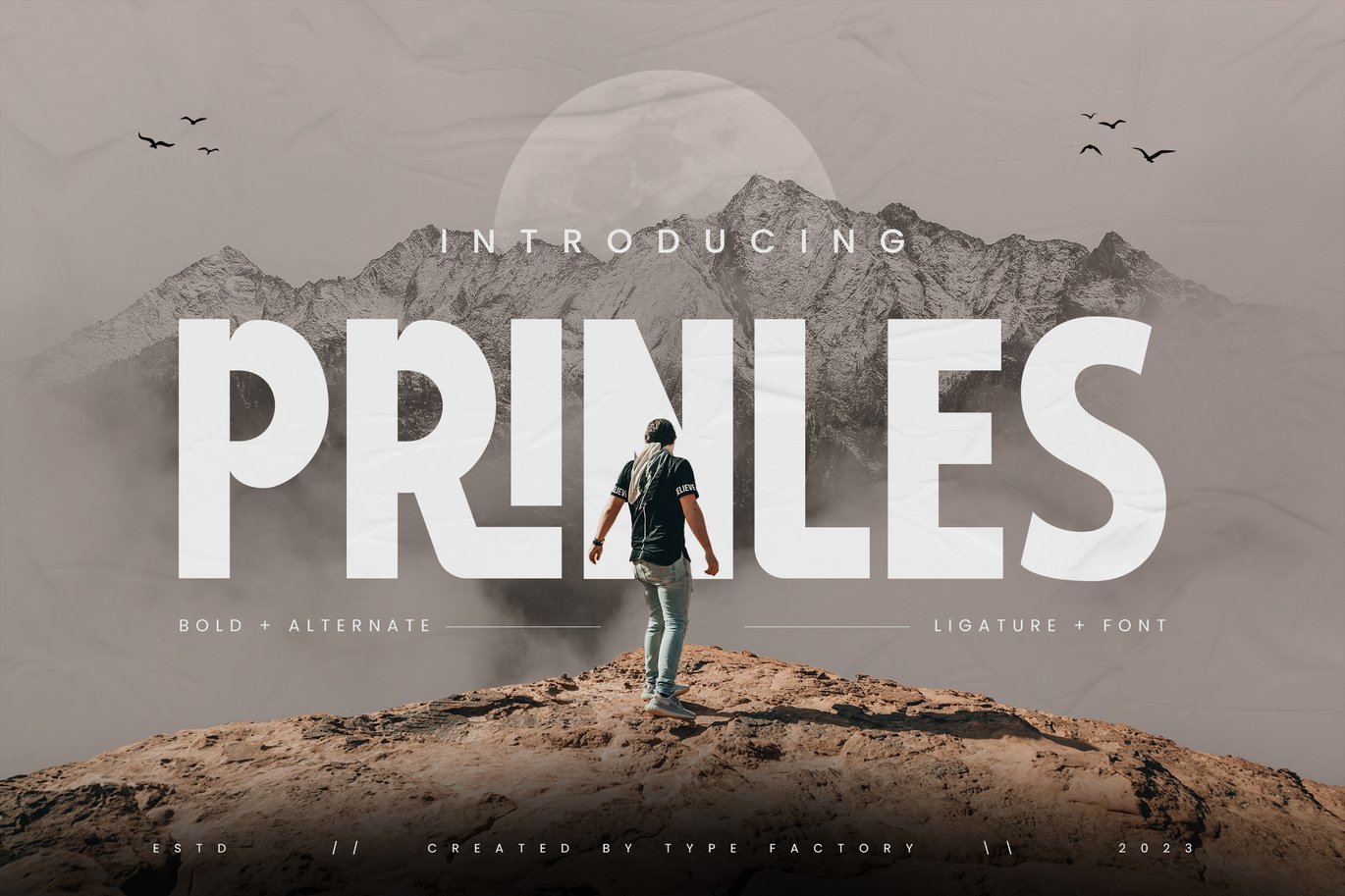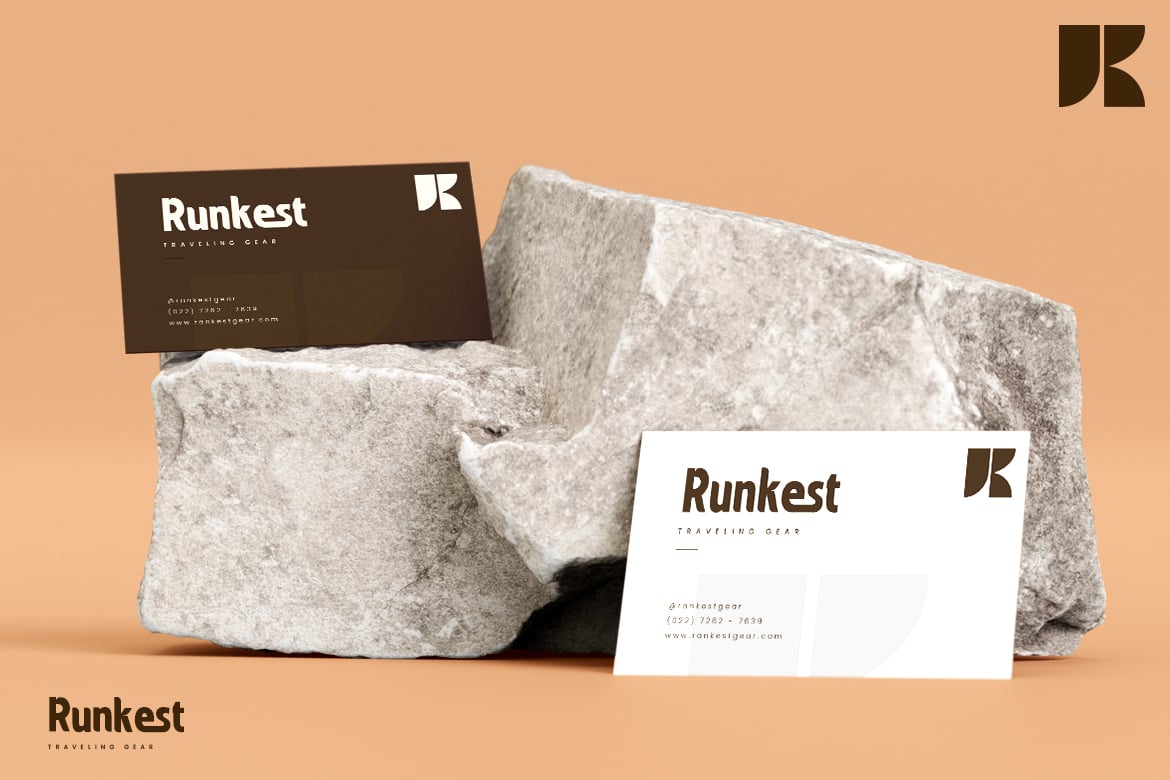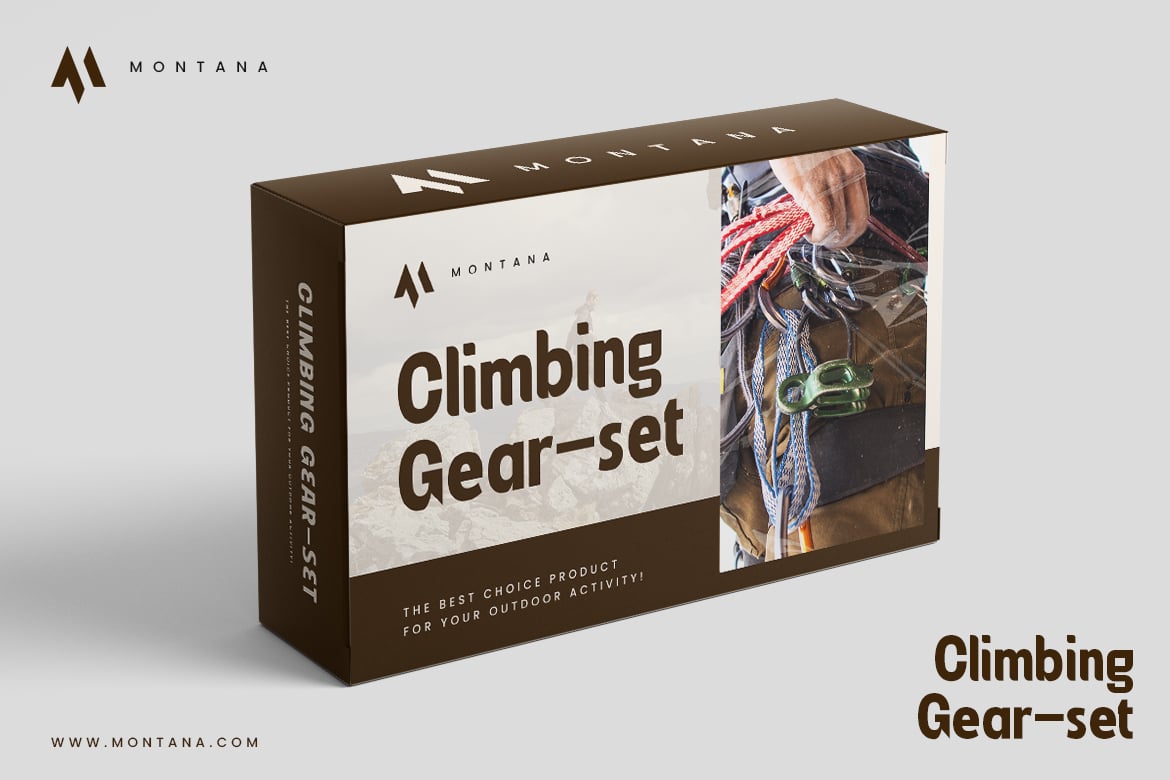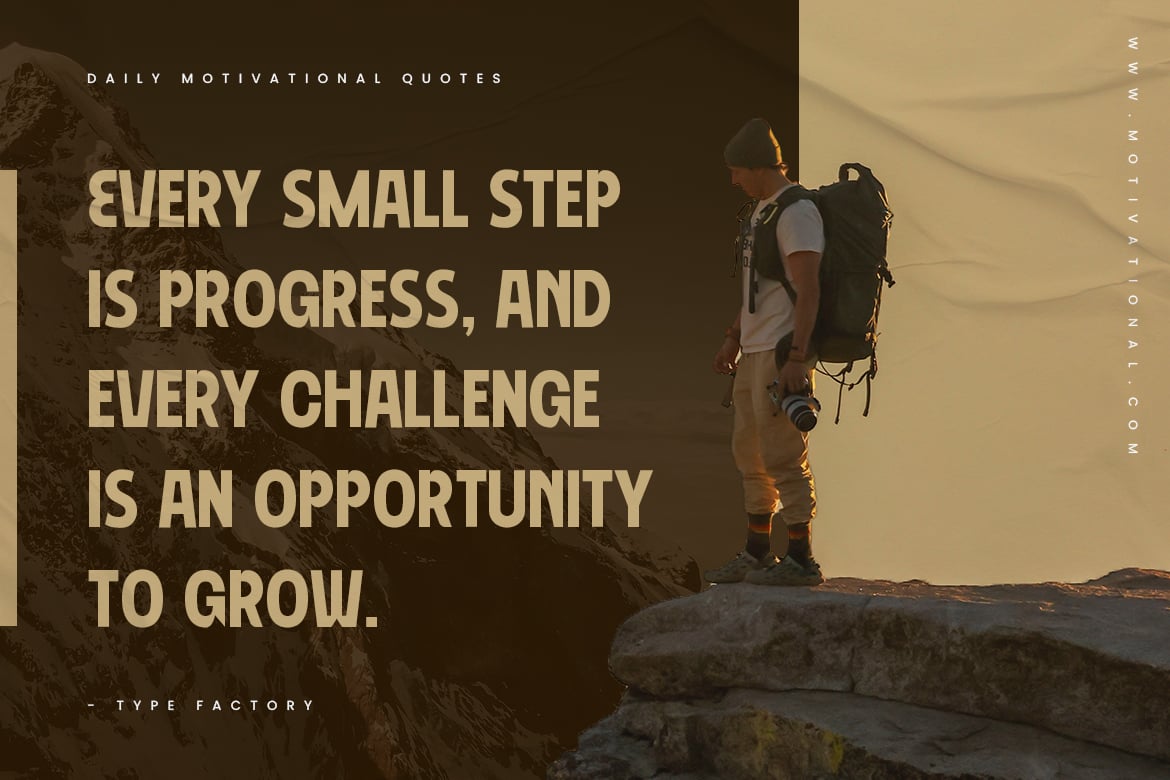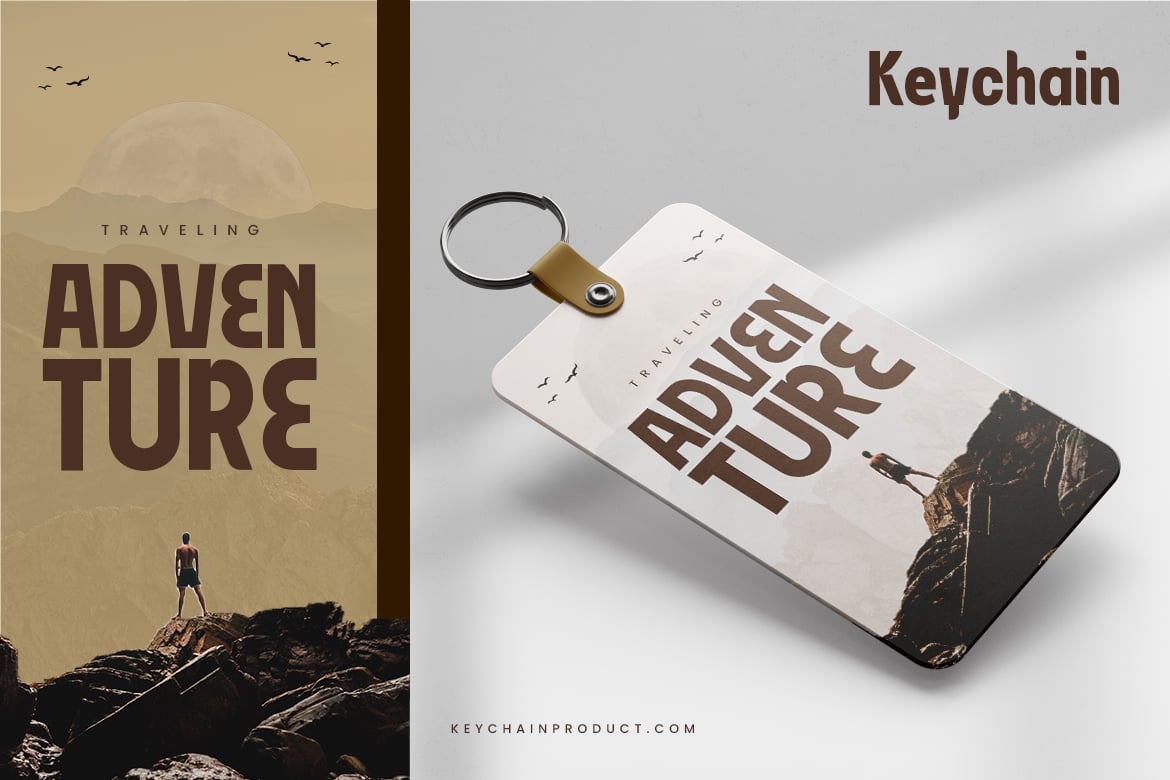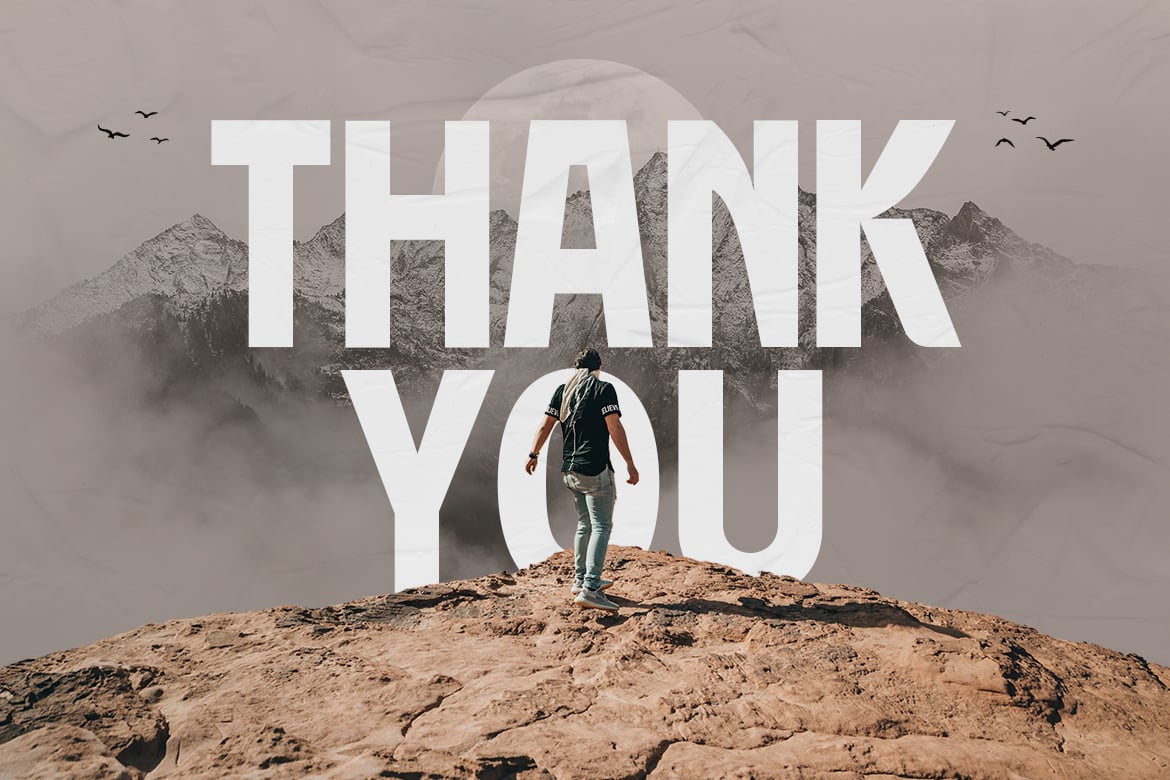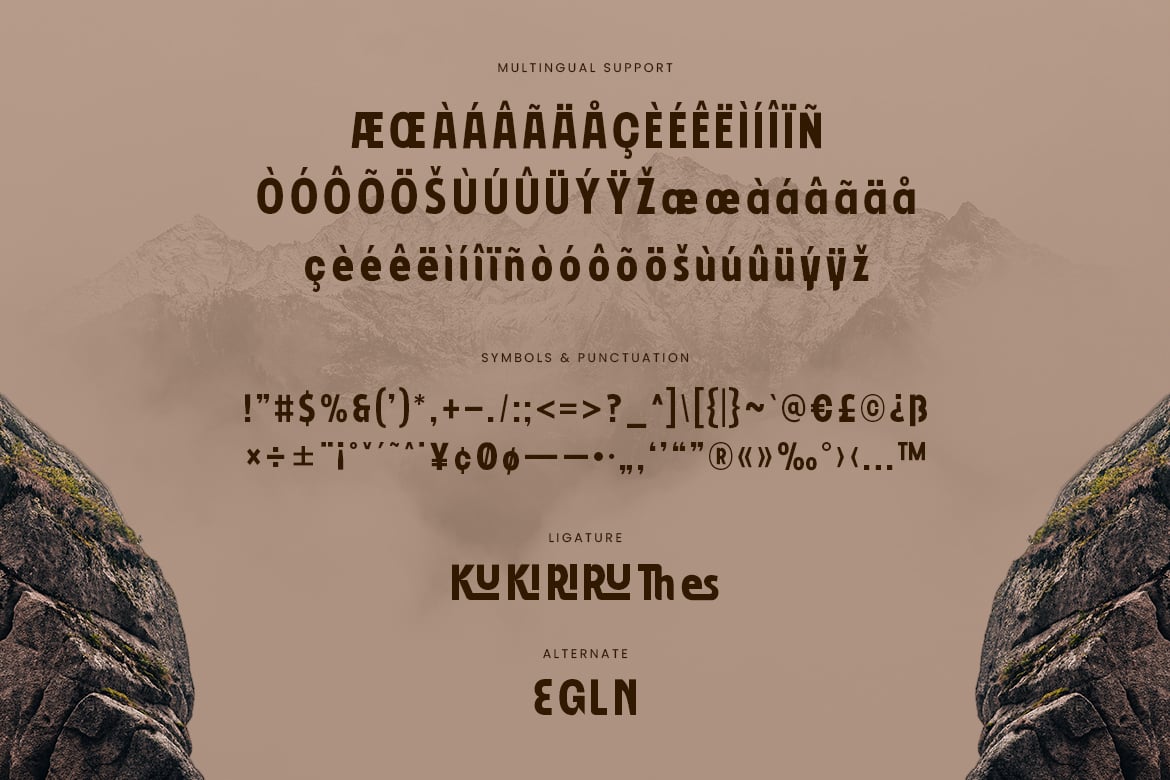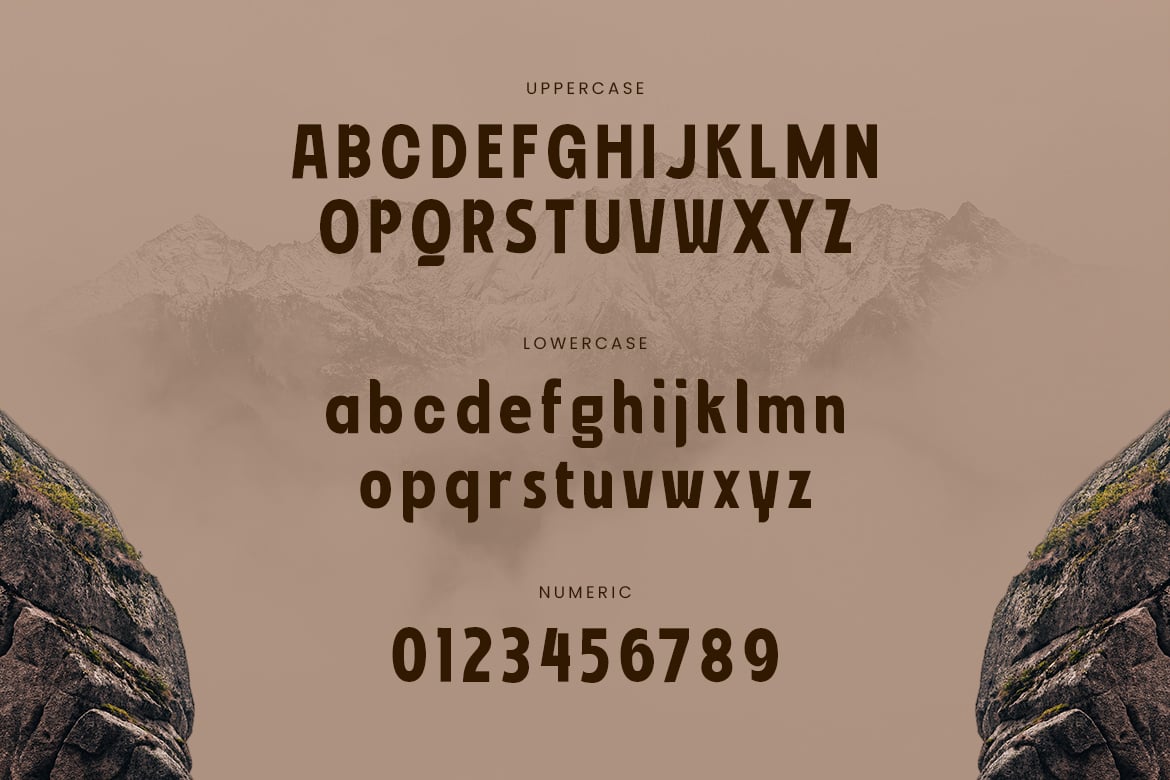
Prinles – Bold Font
Prinles is a striking bold font that combines strength and sophistication, making it ideal for impactful designs. Its powerful letterforms exude confidence and clarity, perfect for headlines, logos, posters, and branding projects that need to stand out. With its modern aesthetic and clean lines, Prinles offers versatility across various applications, ensuring your message is communicated with authority. This font is perfect for both print and digital media, adding a bold flair that captivates and engages your audience.